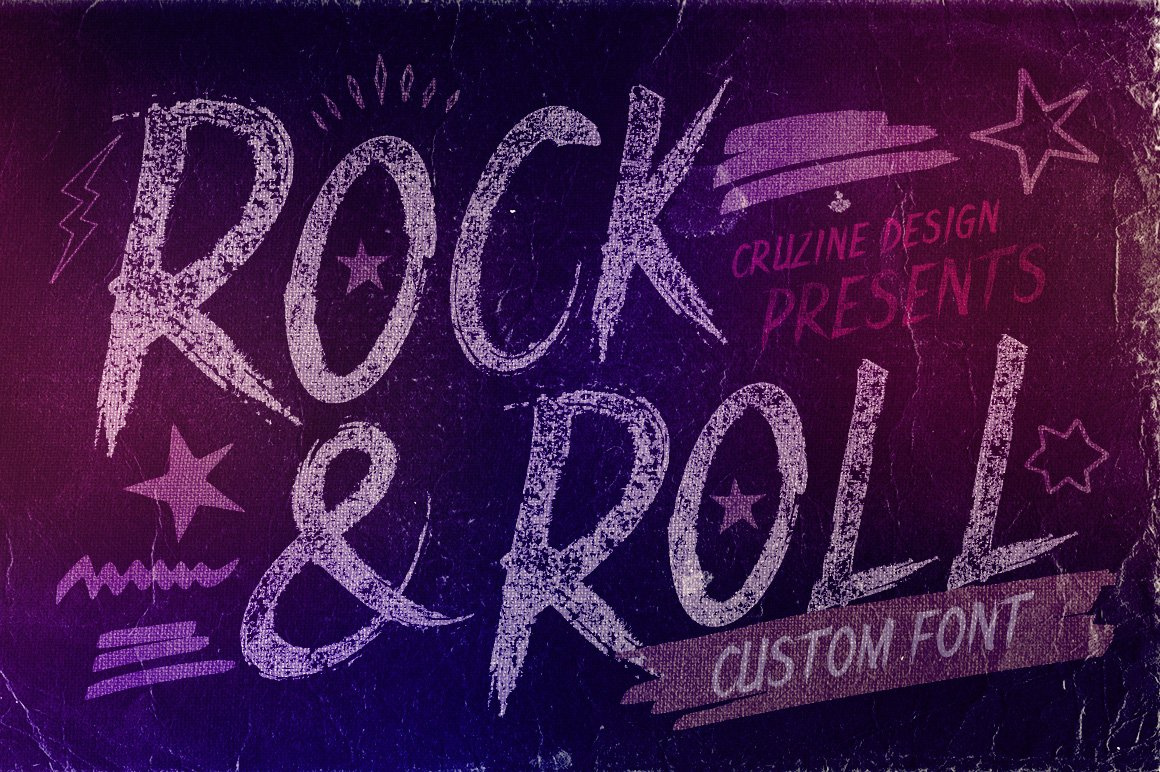
Rocknroll Custom Font
Rocknroll Custom Font is perfect for rock music venues, electric guitar brands, music festival promotions, recording studio signage, band merchandise designs, vintage vinyl shops, rock concert marketing, rebellious fashion labels, energetic entertainment venues, and authentic rock culture branding.
Rocknroll Custom Font creates excitement because it embodies the raw energy and rebellious spirit of rock and roll music with its dynamic letterforms and music-inspired character design. The font's electric presence and rock aesthetic instantly convey musical power and authentic rebellion, making any brand appear energetically charged and genuinely connected to rock culture. Its carefully crafted rock details and rebellious character create an immediate sense of musical electricity that captivates audiences seeking rock experiences, music quality, and products that celebrate the transformative power of rock and roll music and rebellious expression.
The Rocknroll Custom Font family includes multiple weights and styles: Regular, Bold, Black, Ultra Black, Light, Medium, Italic, Condensed, Extended, and Electric versions. Each variant maintains the font's signature rock character while offering different levels of musical styling and rebellious authenticity suitable for various music industry and entertainment applications.
This electrifying typeface brings the authentic spirit of rock and roll into contemporary music design with remarkable energy and rebellious appeal. Rocknroll Custom Font Free Download provides music brands and entertainment organizations with access to premium rock-inspired typography that embodies the essence of musical rebellion and rock excellence. The font's dynamic design and rock authenticity make it ideal for businesses seeking to establish meaningful connections with music-loving audiences who appreciate rock culture, musical rebellion, and the transformative power of rock and roll music that creates authentic musical energy. Whether you're creating branding for music venues, designing materials for recording studios, developing communications for music festivals, or producing content for rock entertainment platforms, this font delivers the electric rock atmosphere that resonates with audiences seeking genuine musical experiences, rock quality, and the rebellious energy that comes from embracing authentic rock and roll culture. Its versatile design ensures outstanding performance across both bold printed materials and dynamic digital music platforms while maintaining the character of authentic rock typography. The font excels in applications requiring musical credibility and rock appeal. Music industry professionals appreciate its ability to convey rock authenticity while remaining highly functional for various musical communications and rock promotional materials. The comprehensive character set includes musical symbols and extensive international language support, making it perfect for global music brands and international rock organizations seeking to communicate authentic rock culture, musical rebellion, and rock excellence to diverse worldwide audiences who embrace rock lifestyle, appreciate musical energy, and value the transformative power of genuine rock and roll music that creates community through electric sound, rebellious spirit, and the unstoppable energy of rock music that continues to inspire generations through authentic musical expression and the timeless power of rock and roll rebellion.